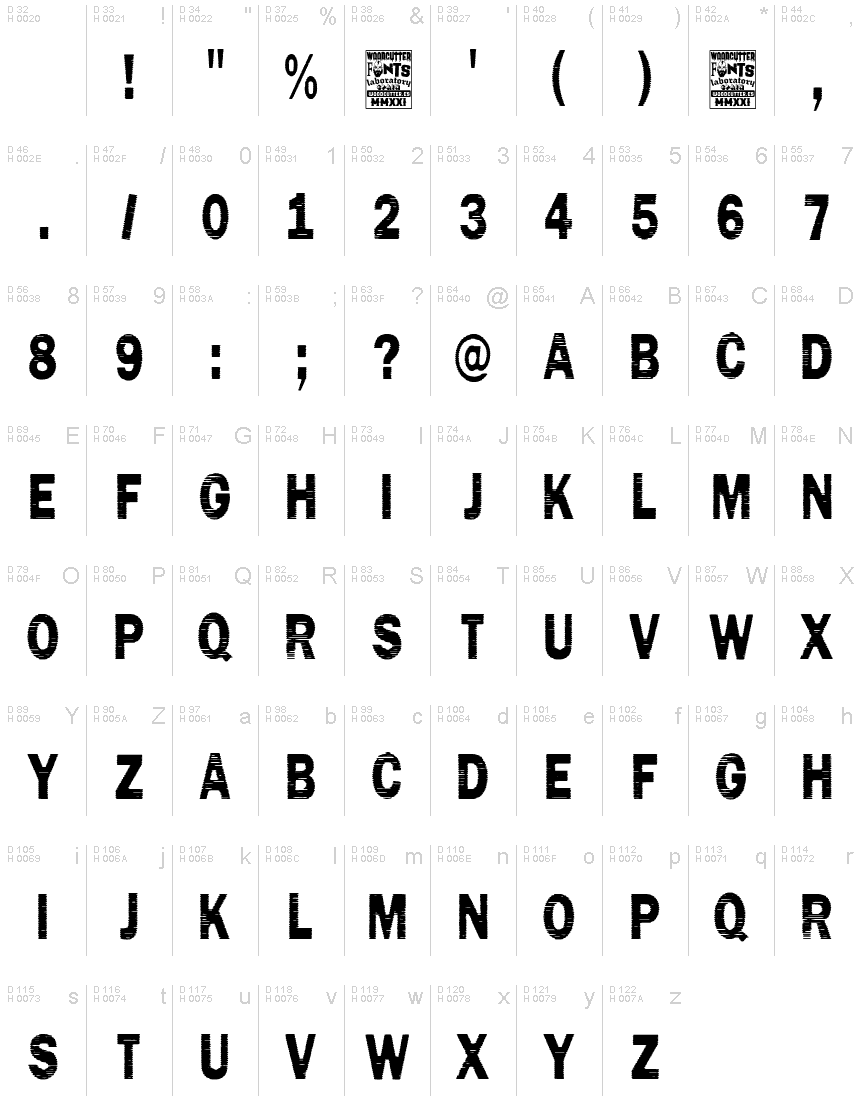
Marinero de Sombras
Marinero de Sombras is a bold, eroded display font created by Woodcutter Manero. It's perfect for projects that need an edgy and distressed look, such as album covers, posters and t-shirt designs.